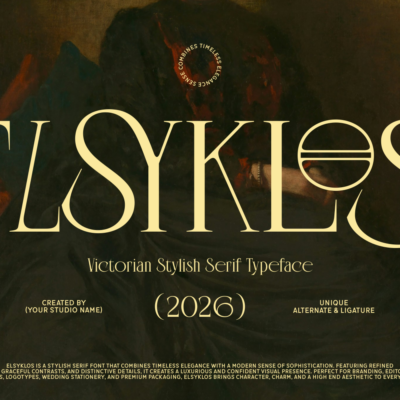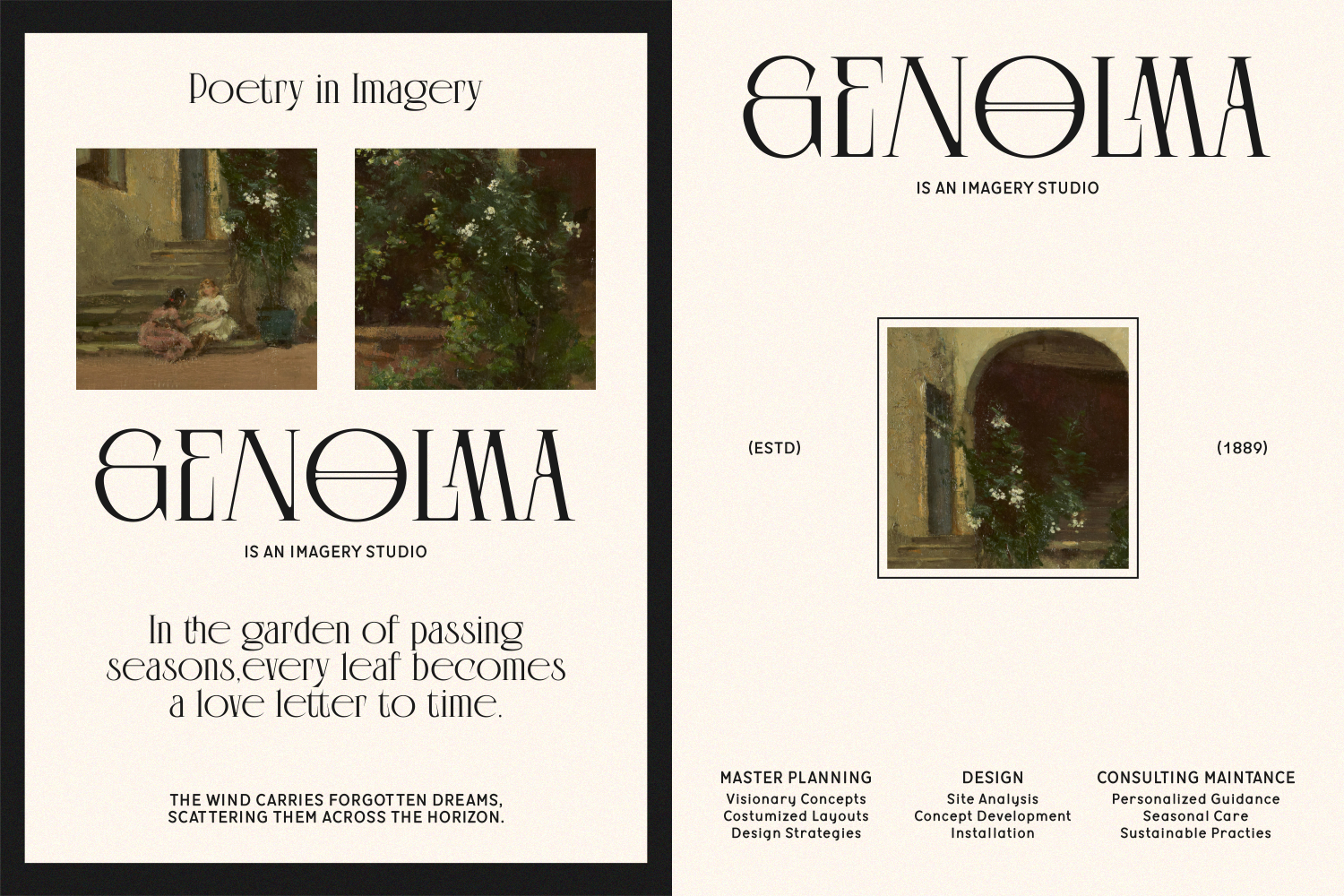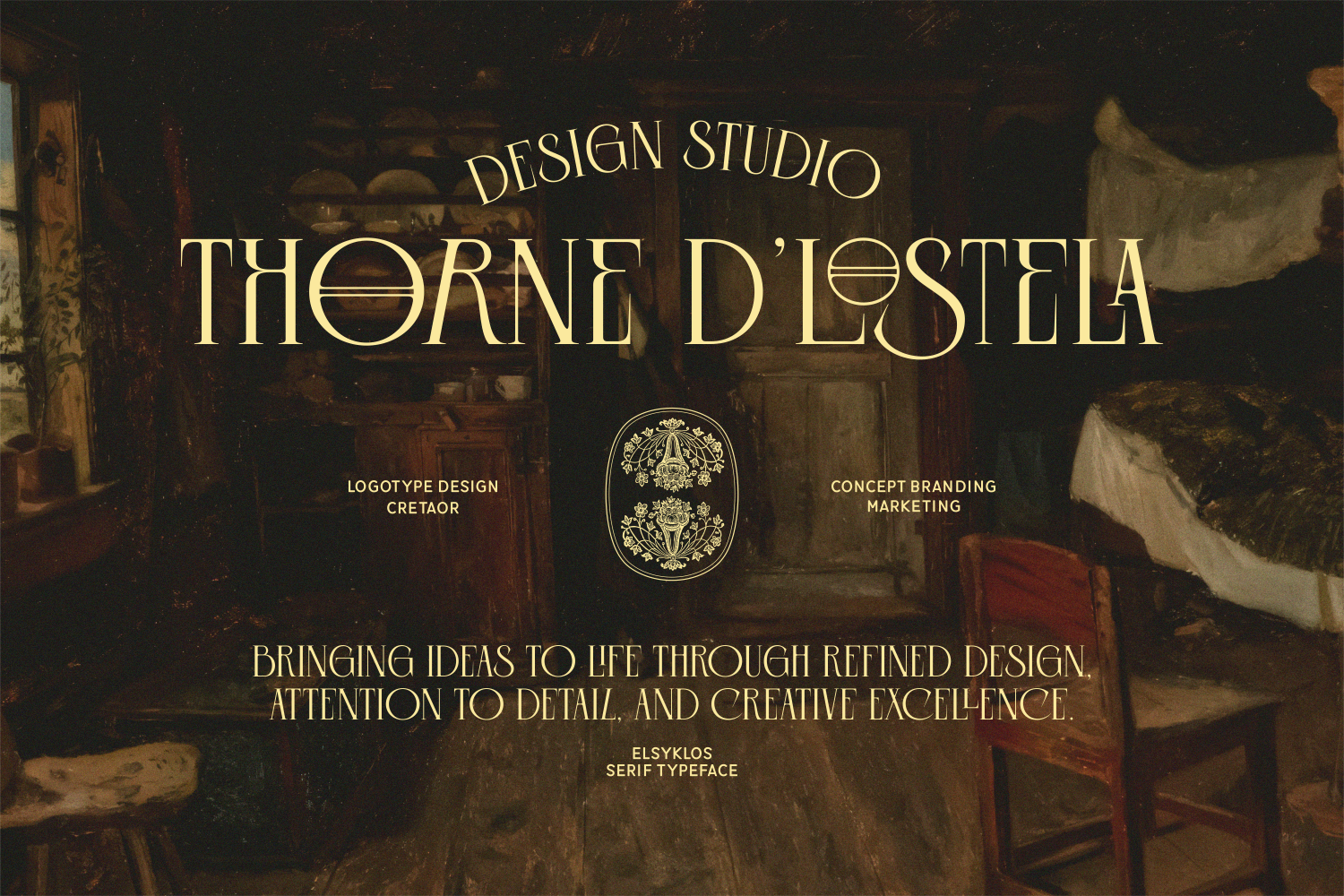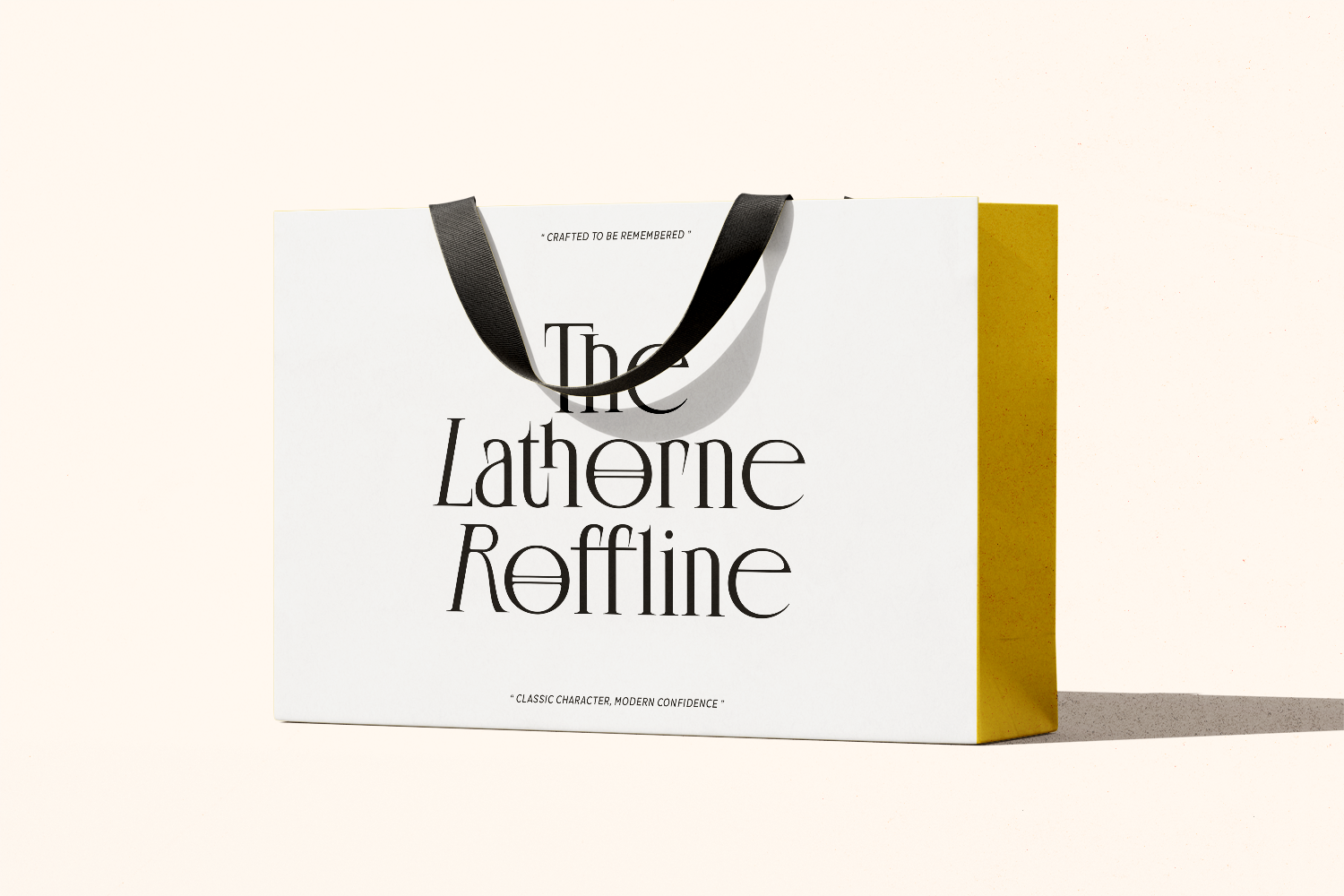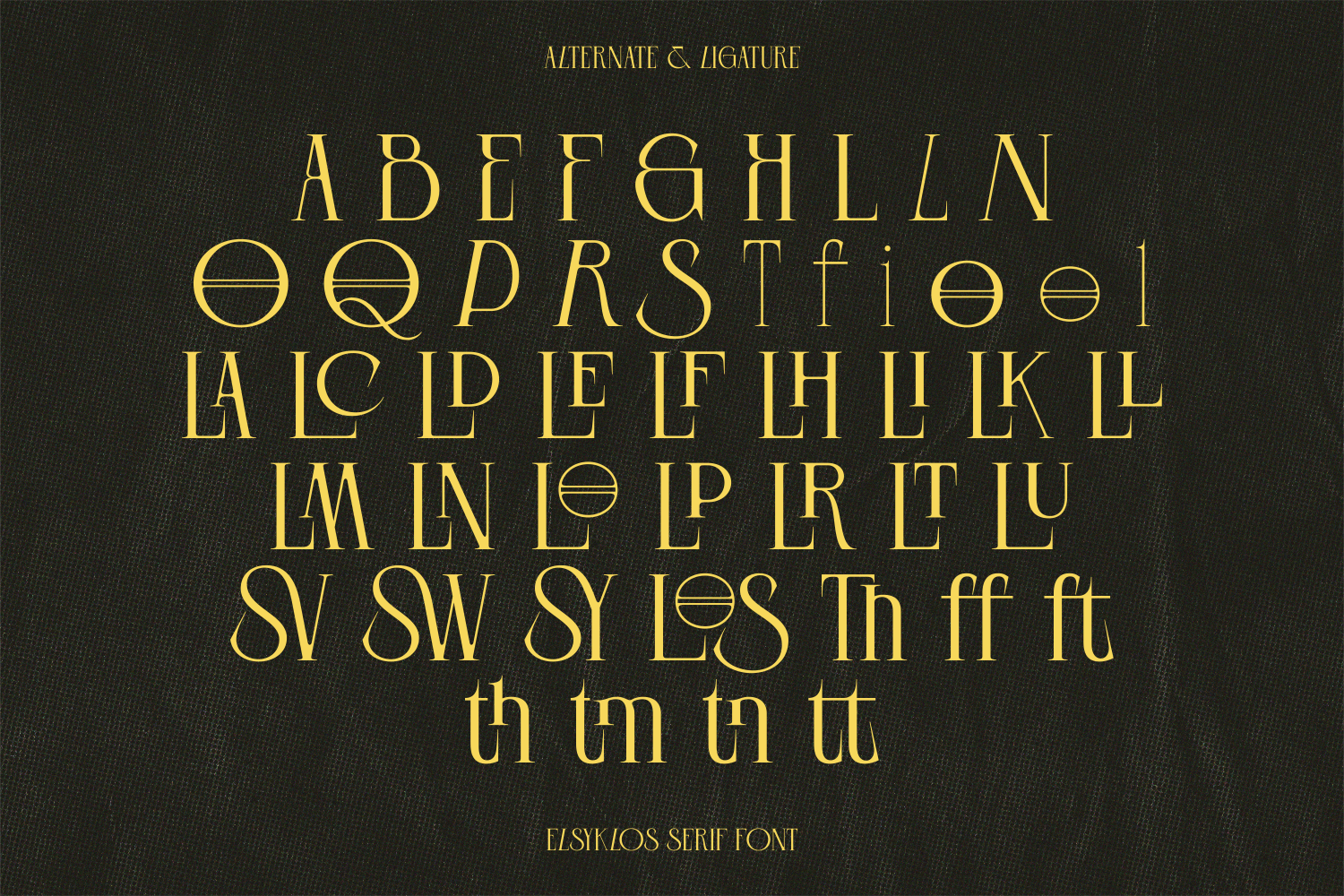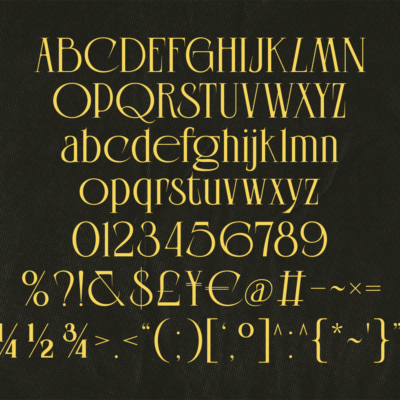
Elsyklos – Victorian Display Serif Font
Introducing Elsyklos – Victorian Display Serif Font
Elsyklos is a decorative display serif with a formal Victorian mood and strong contrast between thin hairlines and broad, curved strokes. Its letterforms mix tall vertical stems, sharp wedge-like serifs, rounded bowls, and flowing Art Nouveau-style curves, giving the alphabet a ceremonial rhythm.
• Uppercase and lowercase letters
• Numbers and punctuation
• Decorative ligatures
• Stylistic alternates
• Basic Latin multilingual support